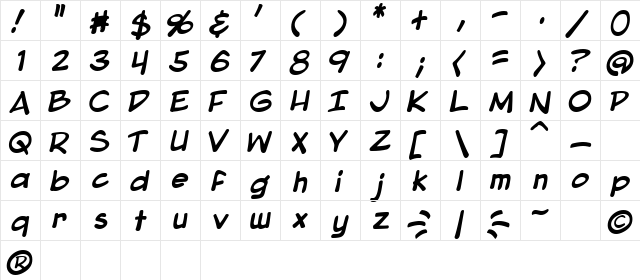
Blambot Pro Lite Bold
Design Context for Blambot Pro Lite Typeface
Blambot Pro Lite takes a measured approach to typography — its balanced proportions and neutral character make it a reliable workhorse for both digital and print work. Its bold stroke weight gives it real presence on the page.